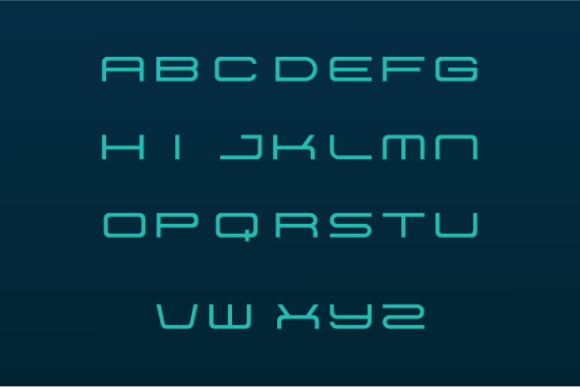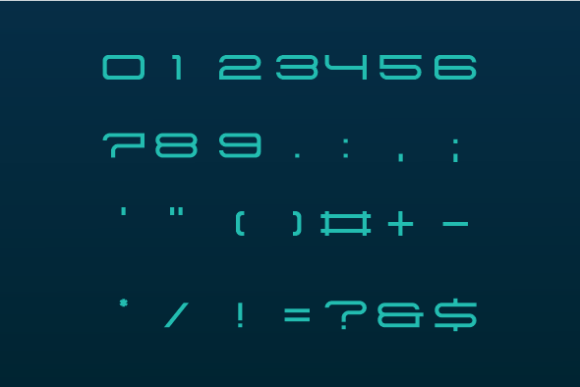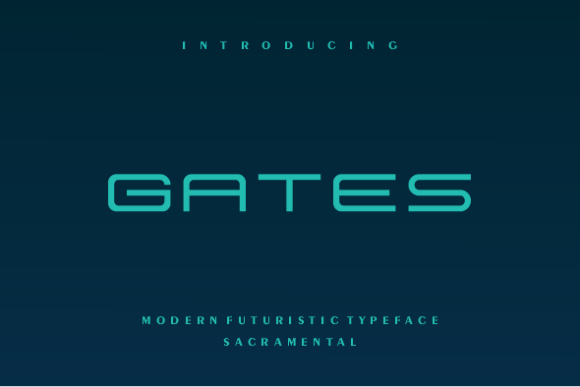
Gates Font: Elevate Your Designs with a Sophisticated and Futuristic Touch
In the realm of typography, fonts play a pivotal role in shaping the visual identity of a design. Among the myriad of fonts available, Gates Font stands out for its unique blend of sophistication, elegance, and futuristic appeal. This article delves into the characteristics of Gates Font, its suitability for various design projects, and how it can be a valuable addition to your typographic arsenal.
The Essence of Gates Font
Gates Font is characterized by its all-caps design, featuring a minimalistic and elegant aesthetic that exudes sophistication. The unique shape of its letters lends a futuristic vibe, making it an ideal choice for designers looking to infuse their projects with a touch of modernity. Whether it’s for sci-fi designs, logos, headlines, or artwork, Gates Font is particularly suited for projects that require a forward-thinking approach.
Sci-Fi and Futuristic Designs
Sci-fi designs often require typography that can convey a sense of futurism and otherworldliness. Gates Font, with its sleek and streamlined letterforms, perfectly captures the essence of sci-fi aesthetics. Its use can instantly elevate a design, transporting it into a futuristic realm that captivates audiences. Designers working on sci-fi projects, such as movie posters, video game graphics, or futuristic branding, will find Gates Font to be an invaluable resource.
Logo and Branding Applications
Logos and branding materials are crucial for establishing a company’s visual identity. Gates Font, with its elegant and sophisticated look, can be a powerful tool for creating memorable logos and brand names. Its unique shape and minimalistic design ensure that logos stand out, conveying a sense of innovation and forward-thinking that is essential for brands aiming to make a lasting impression.
Headlines and Artwork
For headlines and artwork, the right font can make all the difference in capturing the audience’s attention. Gates Font, with its bold and futuristic appearance, is perfect for creating eye-catching headlines that demand attention. Additionally, its elegance and sophistication make it suitable for a wide range of artwork, from digital illustrations to print designs, where a touch of futurism is desired.
Why Choose Gates Font?
There are several reasons why designers and crafters might choose Gates Font for their projects:
- Unique Aesthetic: Gates Font offers a distinctive look that sets it apart from more traditional fonts.
- Versatility: Its suitability for a wide range of design projects, from sci-fi to branding, makes it a versatile addition to any designer’s toolkit.
- Ease of Use: Being an all-caps font, Gates Font is straightforward to use, ensuring consistency across designs.
- Modern Appeal: Its futuristic touch makes it perfect for designers looking to create modern and engaging designs.
How to Use Gates Font